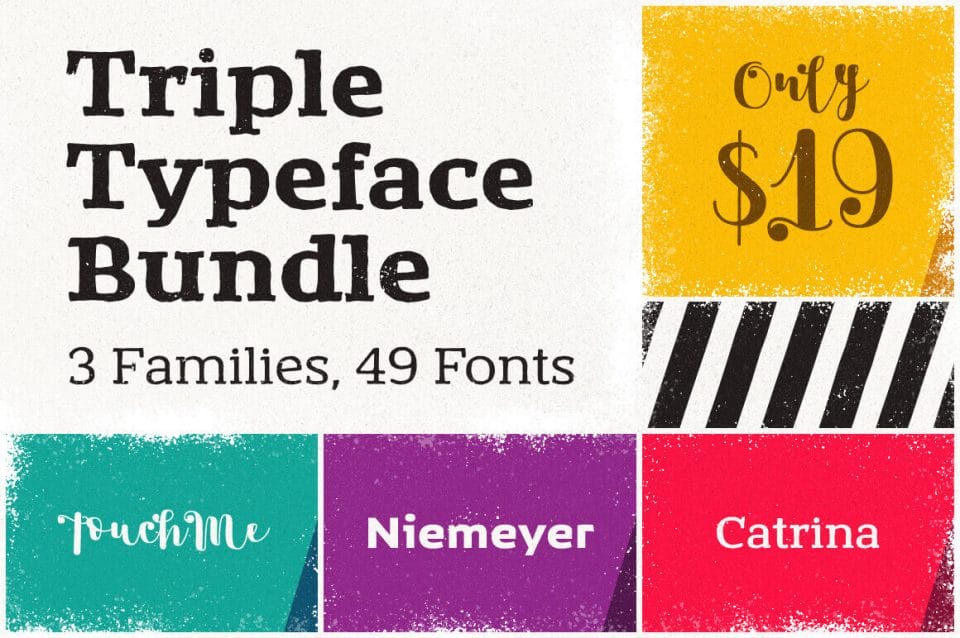
Your family of fonts is about to expand big time. With this magnificent Mighty Deal you’ll get a whopping 49 unique typefaces, made up from 3 fabulous font families. Multiple weights and loads of OpenType Features make for an easy choice when it comes to everything from branding to magazine covers.
- 3 professional Latinotype Font Families:
- 49 unique typefaces.
- OpenType Features – alternate glyphs, oldstyle figures, ornaments, dingbats.
- Variety of weights – from thin and ultralight to bold and black.
- Great option for variety of online and print products including: headlines, magazines, book covers, posters, T-shirts, mugs, totes, signs, prints, invitations and more.